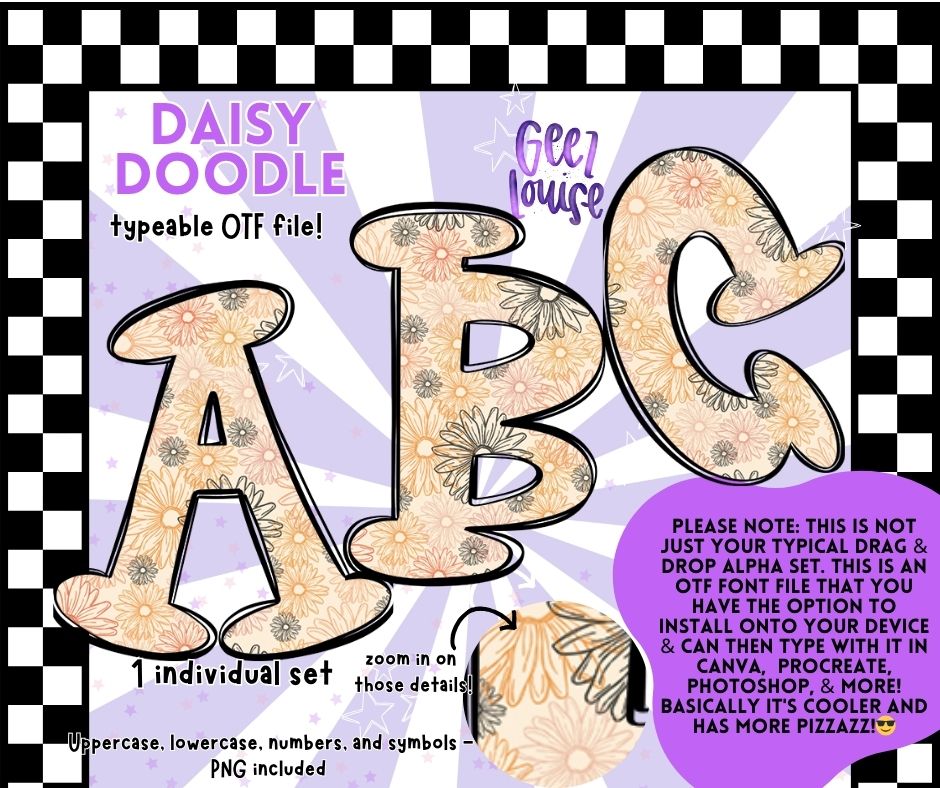
Daisy Doodle- OTF Font + PNG Alpha Set
Get groovy with Daisy Doodle, a hand-drawn OTF alpha set bursting with retro floral charm! These uppercase letters are filled with soft doodle daisies in blush, orange, and neutral tones—perfect for spring and summer projects with a touch of whimsy. Whether you're designing graphics in Canva or personalizing gear in Procreate or Photoshop, this typeable OTF font + transparent PNG pack has everything you need to bloom creatively.